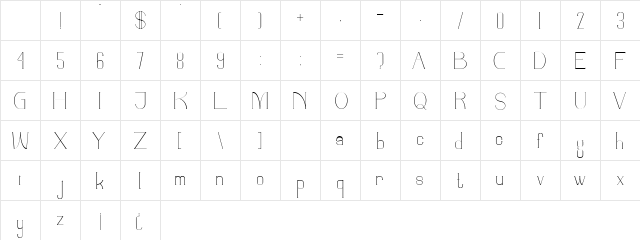
Complete PARINOCK Regular glyph index. Displaying only characters natively supported by PARINOCK Regular font.
PARINOCK is a composed and adaptable typeface that performs quietly and consistently across a wide range of design contexts.